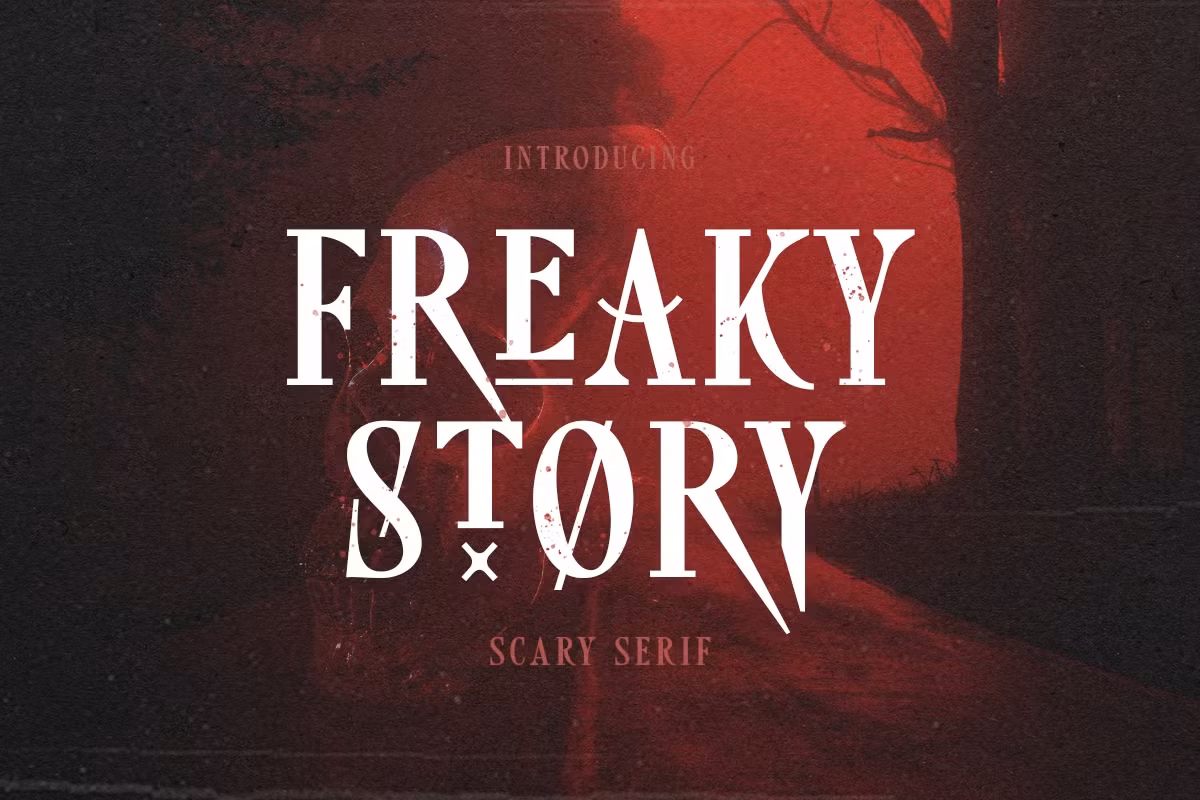
Freaky Story - Creepy Font Free Download
Freaky Story – Creepy Font Free Download
Freaky Story – Creepy Font Free Download is a spooky and playful typeface designed to bring eerie vibes and chilling character to your Halloween-themed or horror-inspired designs. With its jagged edges, irregular forms, and cartoonish creep factor, this font is perfect for haunted house posters, scary storybooks, party invitations, thriller movie titles, and eerie social media graphics.
Freaky Story – Creepy Font Free Download blends horror with fun, making it great for both kid-friendly and spine-tingling projects. It’s especially effective in large display settings where the distorted, unsettling details can stand out.